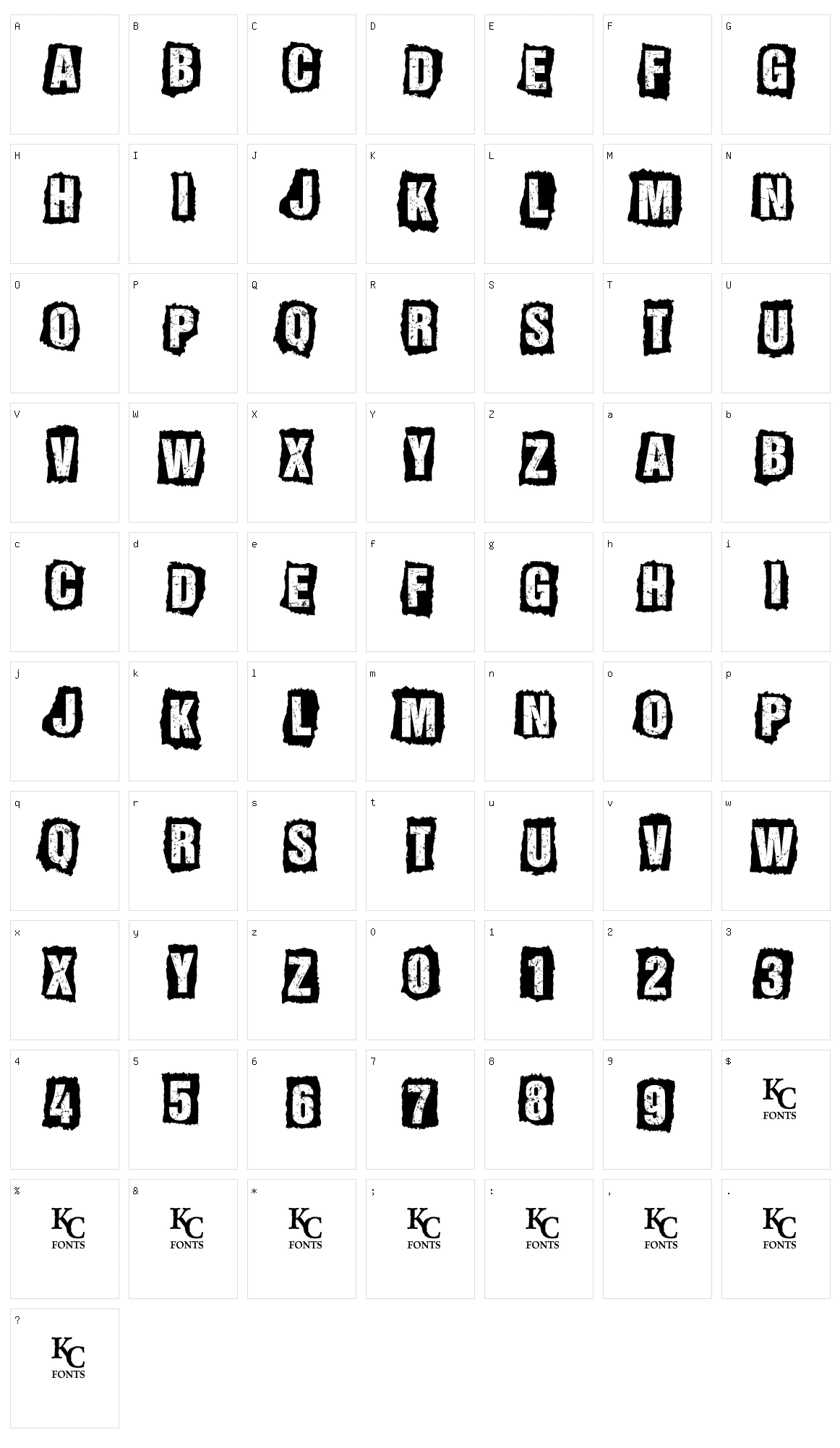
ALL AGES is perfect for that punk rock look.
The font has three settings; Normal is the ripped paper look with the letter knocked out.
Bold which is just the ripped paper, no font.
Bold Italic is the font to go on top of the ripped paper,
(not kerned properly to be used on it's own).